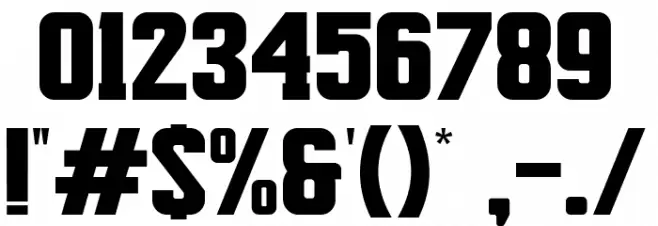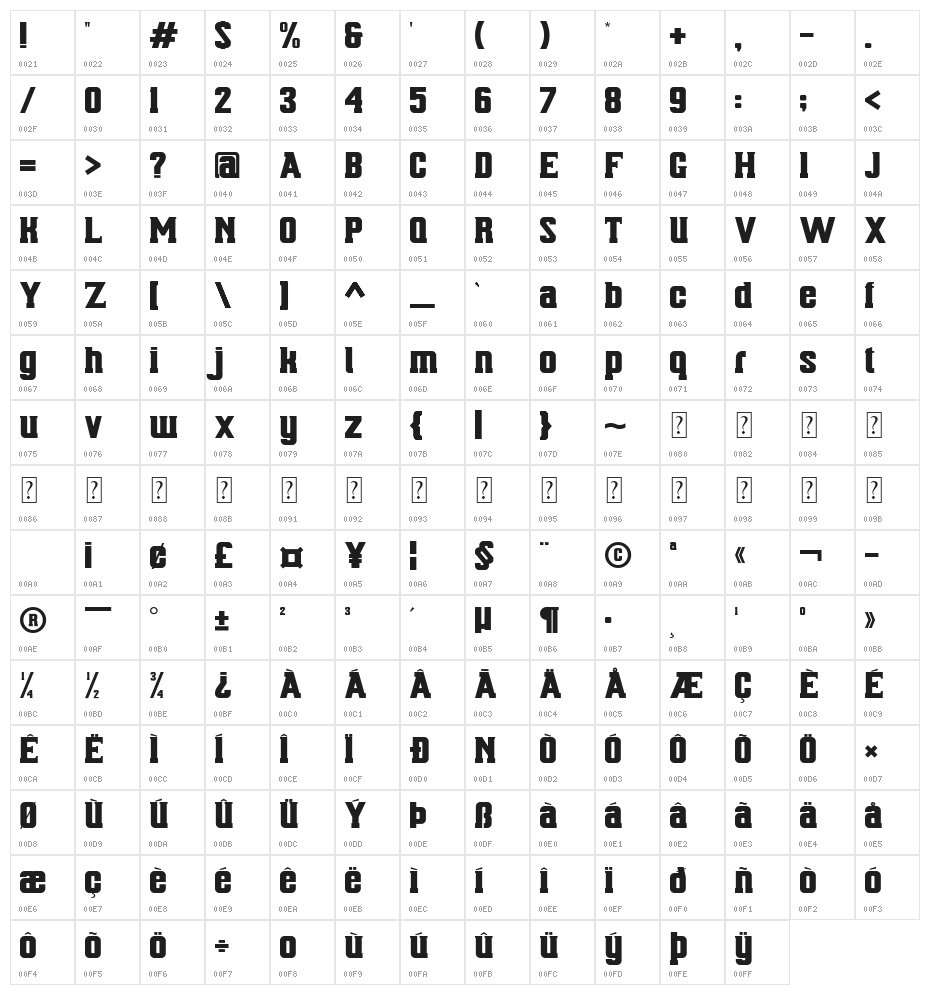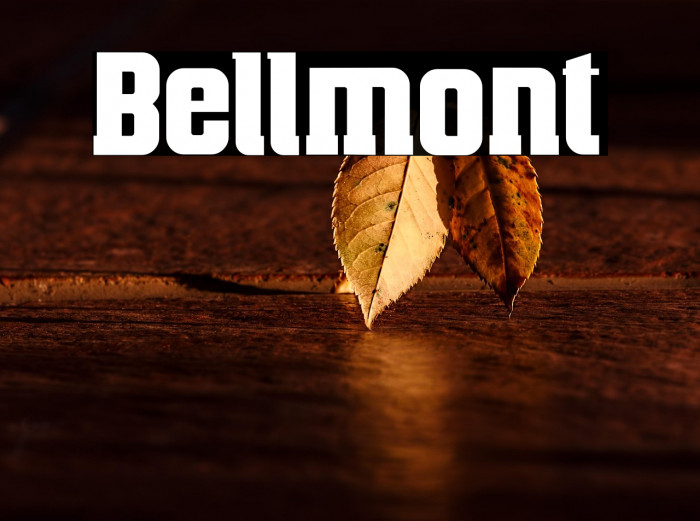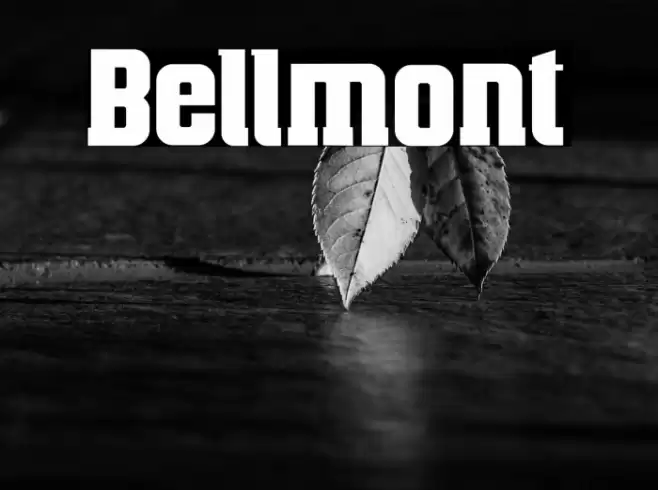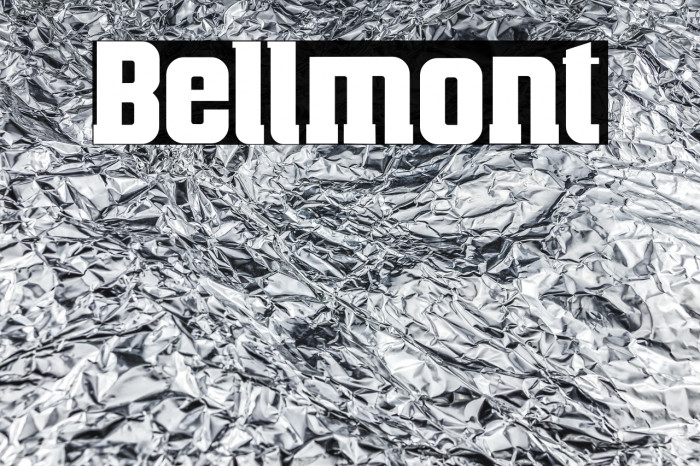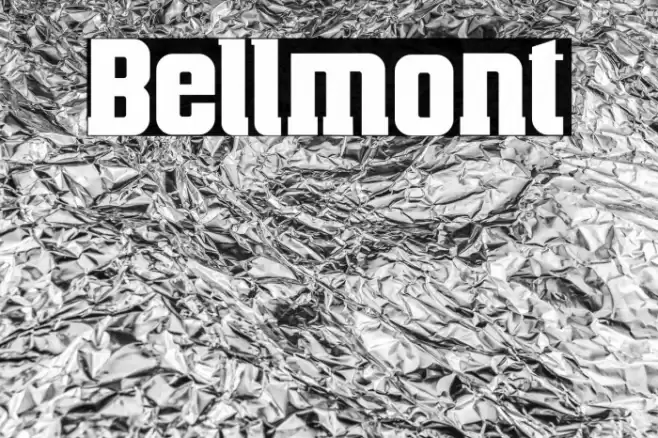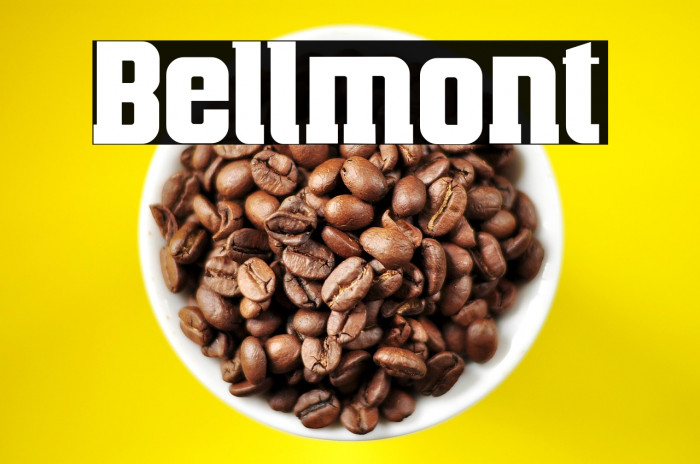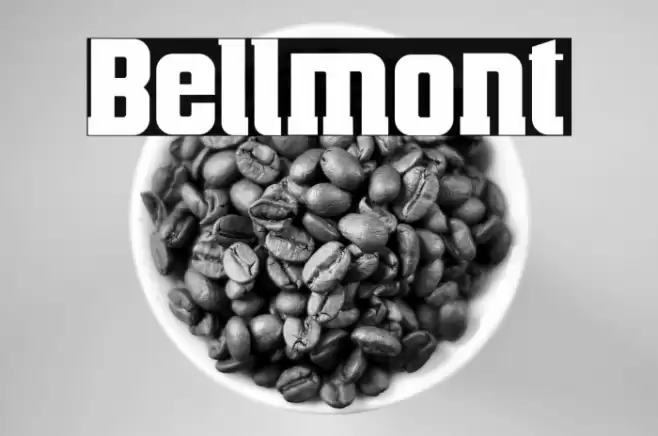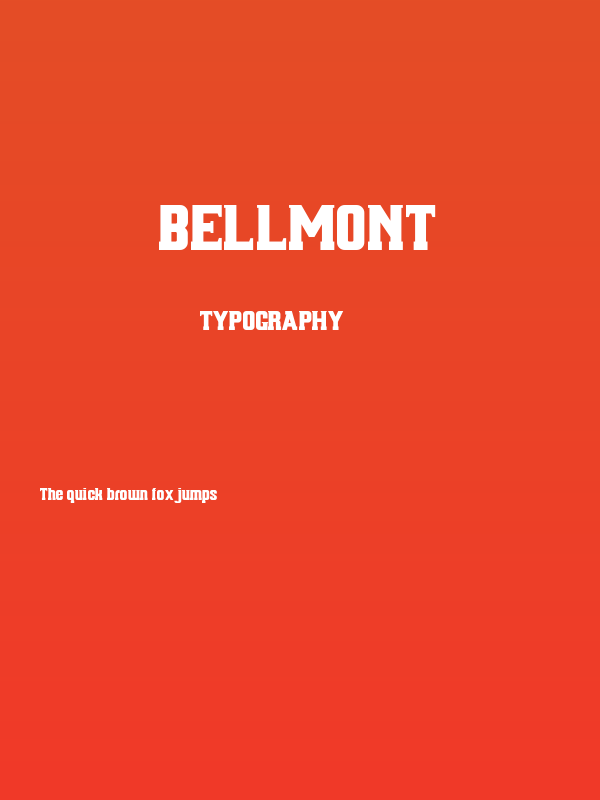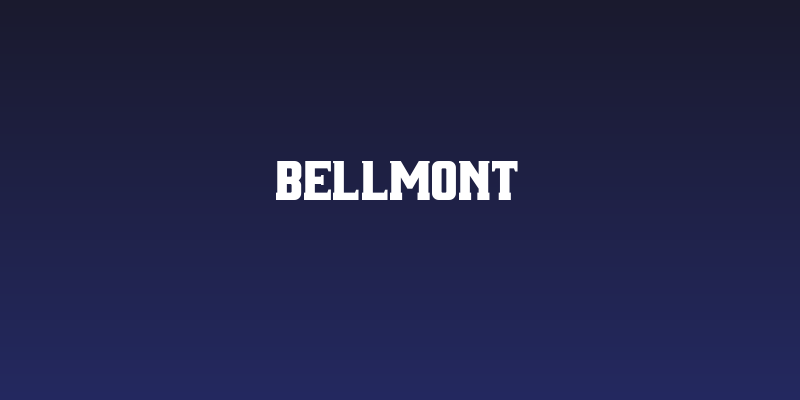
Bellmont Font
Bellmont Description
This font features a bold and impactful design with strong, thick strokes and a commanding presence. The characters are well-defined with a slight vintage flair, reminiscent of classic poster fonts. The uppercase letters are particularly striking, with a robust and confident appearance. The lowercase letters maintain the same boldness, ensuring consistency across the typeface. Numbers and special characters are equally bold, making them stand out in any design. The overall style is both decorative and functional, suitable for making a strong visual statement.
| Proposed Projects | Ideal for posters, headlines, branding, and any project requiring a bold statement. |